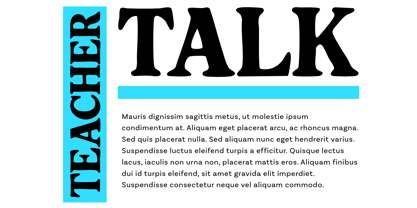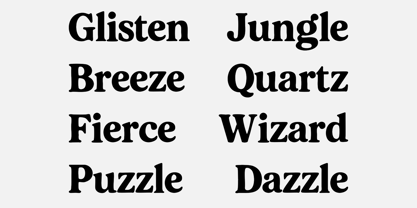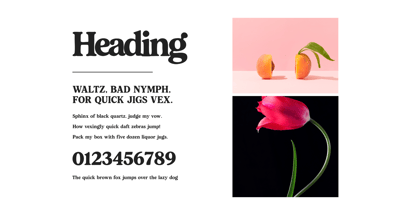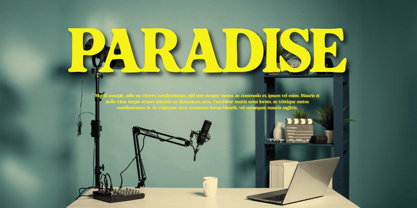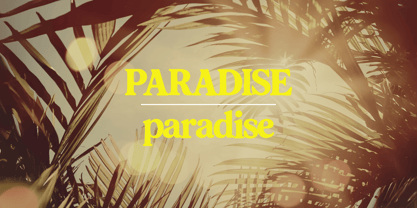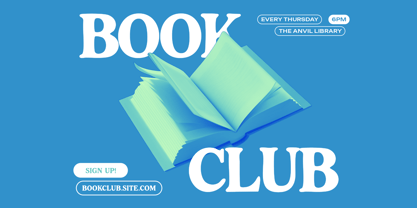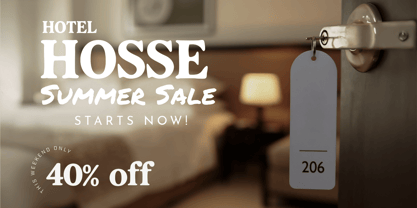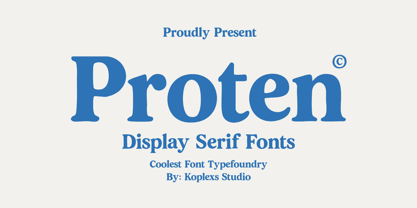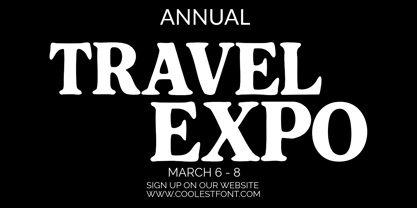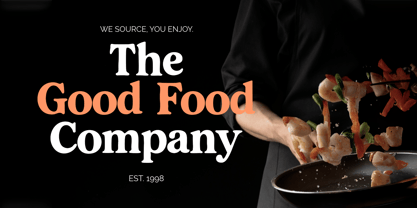
Proten
The Proten Font Family was designed by Ahmad Muslimin and published by Koplexs Studio. Proten contains 2 styles and family package options. More about this family
Proten Font is a bold display serif typeface crafted to bring elegance, confidence, and timeless character into your creative projects. Designed with strong curves, stylish serifs, and a modern classic touch, Proten combines vintage inspiration with contemporary aesthetics, making it perfect for designers who want typography that feels both luxurious and impactful.
This modern serif font is carefully created for standout visual communication. Whether you are designing a premium brand identity, magazine headline, fashion campaign, product packaging, or social media content, Proten delivers a powerful and sophisticated appearance with excellent readability.
Its bold structure and artistic serif details make every word look expressive, stylish, and memorable. From minimalist layouts to dramatic editorial compositions, Proten adapts beautifully across both digital and print designs.
Font Features
• Uppercase & lowercase letters
• Numerals & punctuation
• Multilingual support
• Stylish ligatures
• Smooth readability
• High quality display serif style
Proten Font is the perfect choice for creatives looking for a typeface that feels elegant, bold, aesthetic, and professional at the same time. Add a refined visual personality to your next project with this unique serif display font from Koplexs Studio.